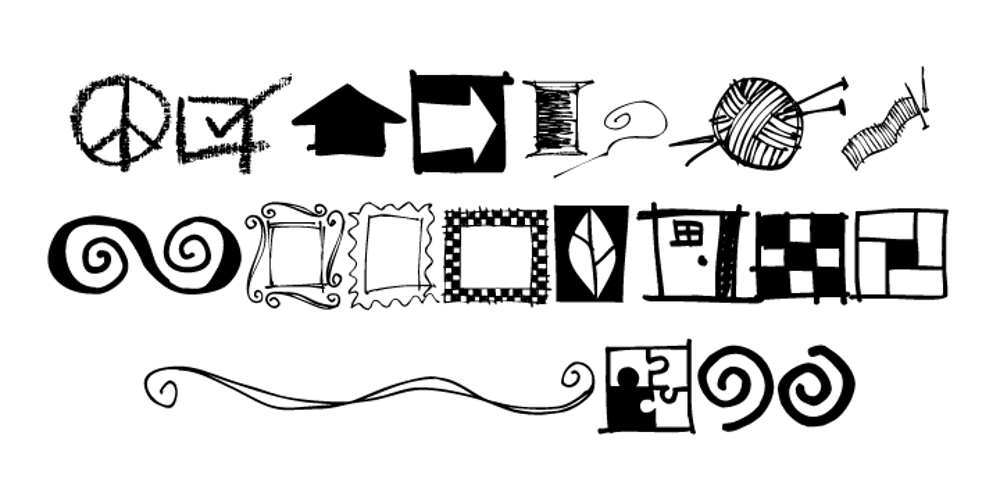
Doodles Too Font Family was designed by Rae Kaiser and published by Outside the Line. Doodles Too contains 1 styles and family package options. Doodles Too is a new pictogram font from Outside the Line. It features 40 little pictures… odds & ends of this & that. If you liked the font Doodles, Holiday Doodles or Holiday Doodles Too you should love Doodles Too as it is more of the same.